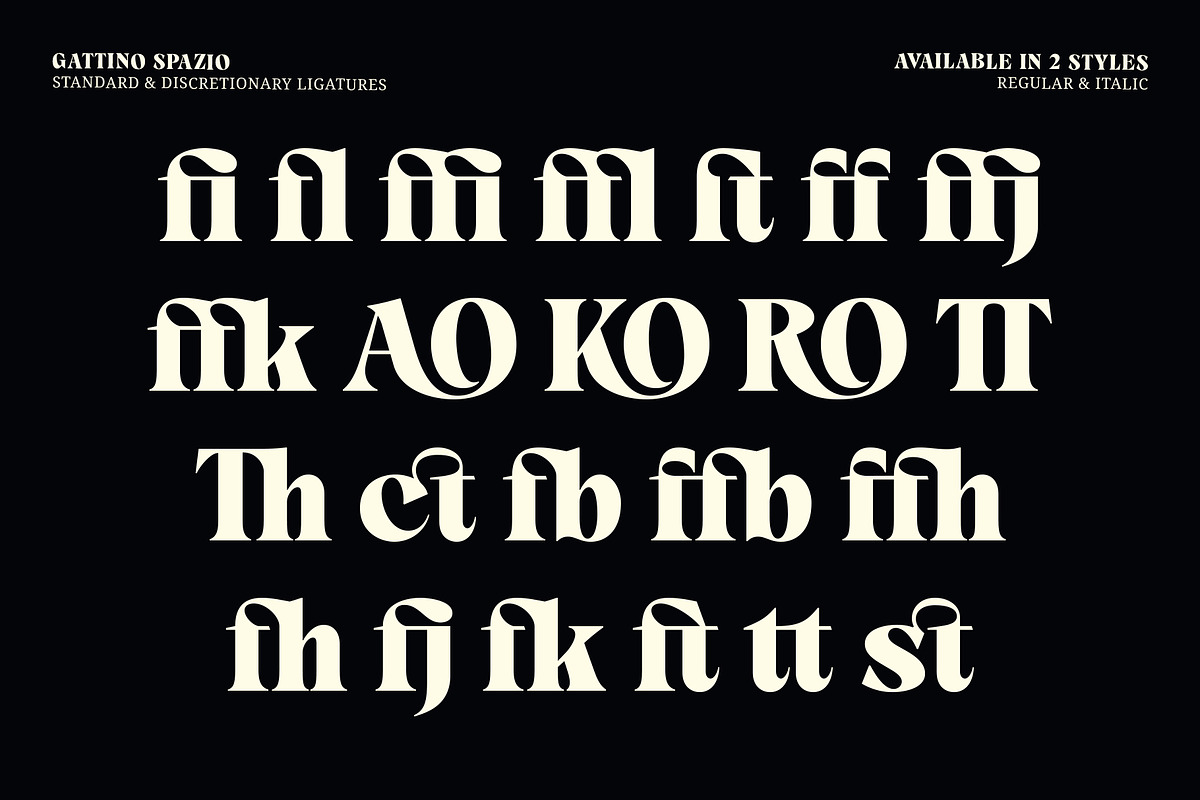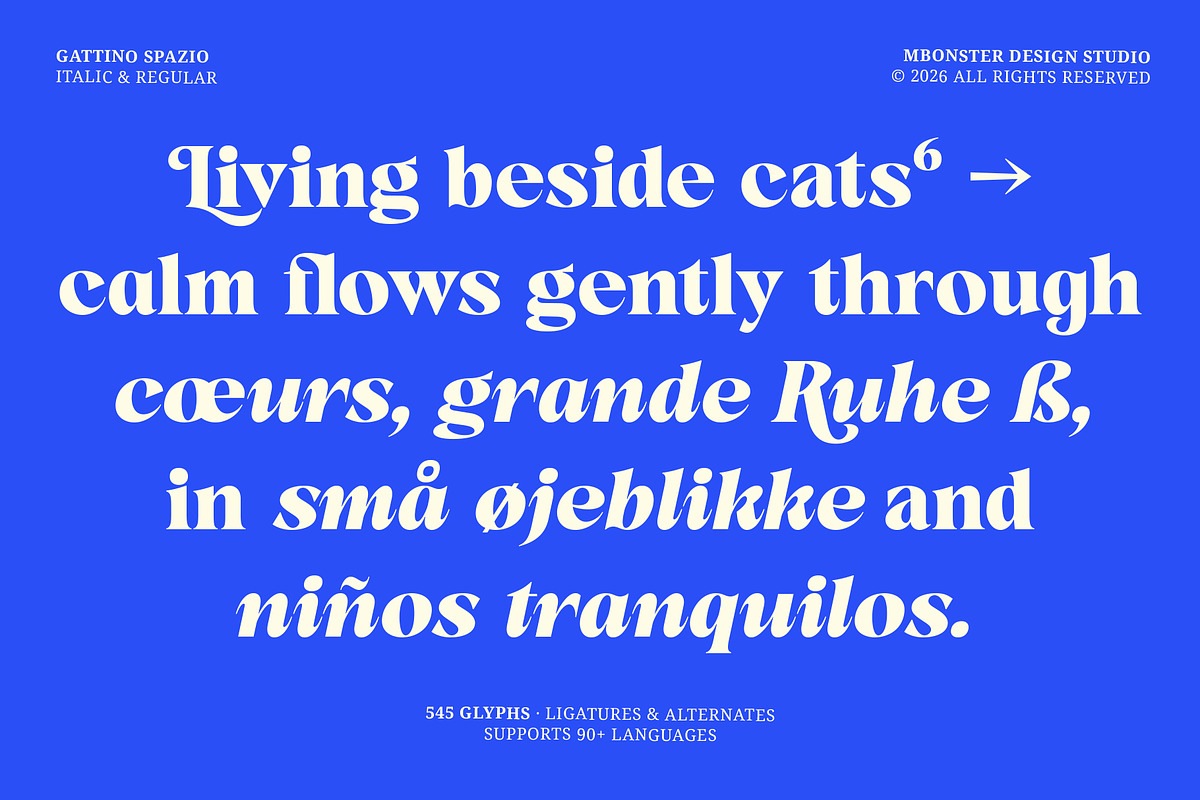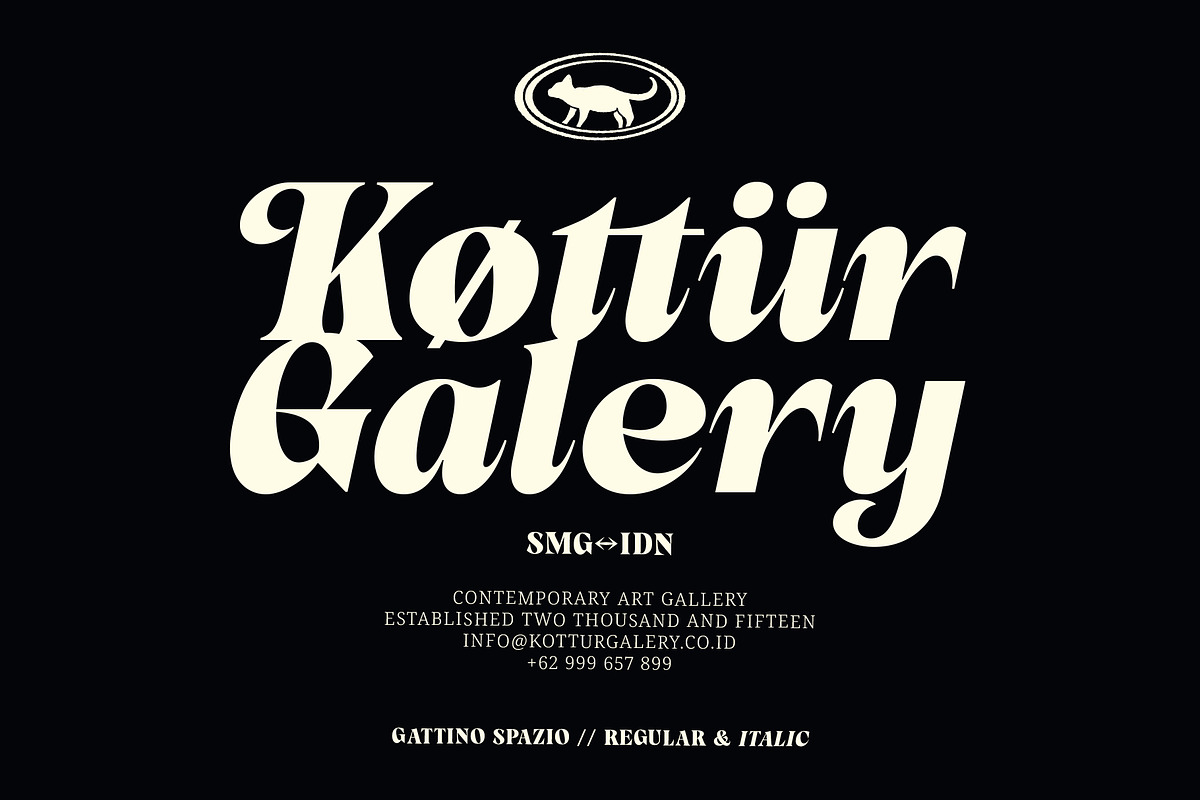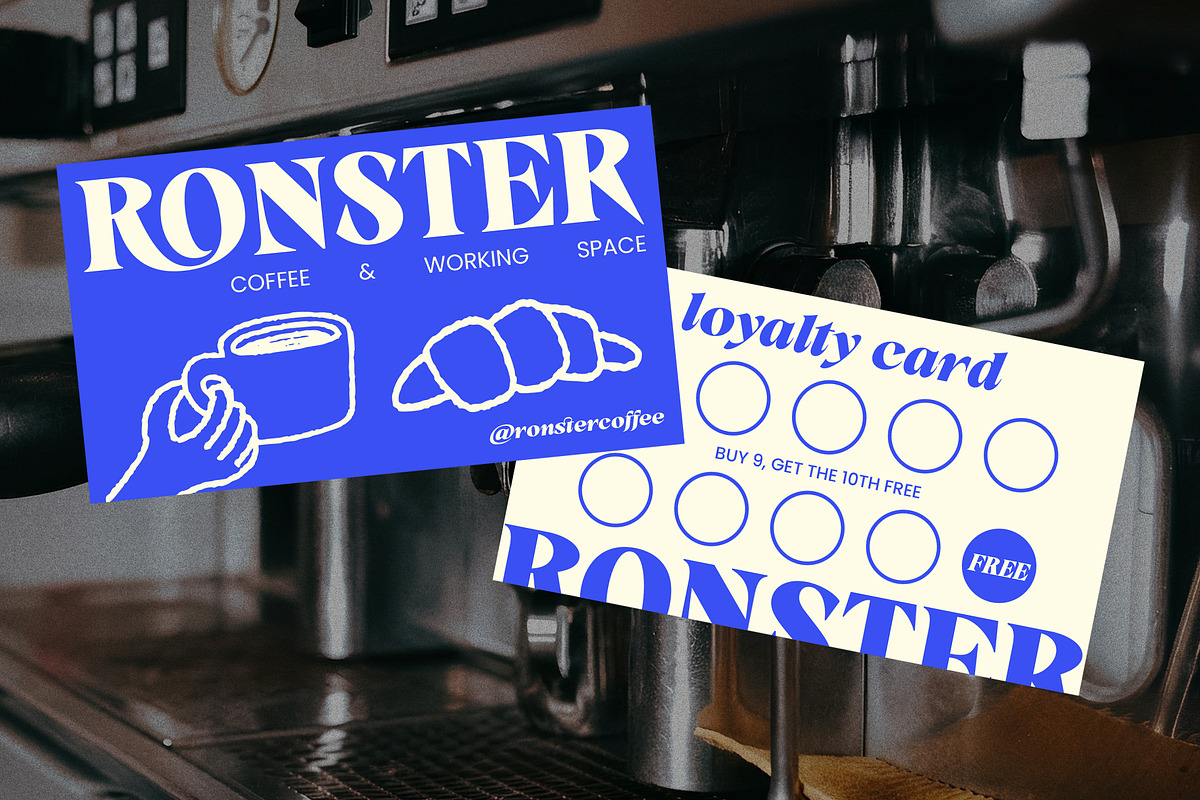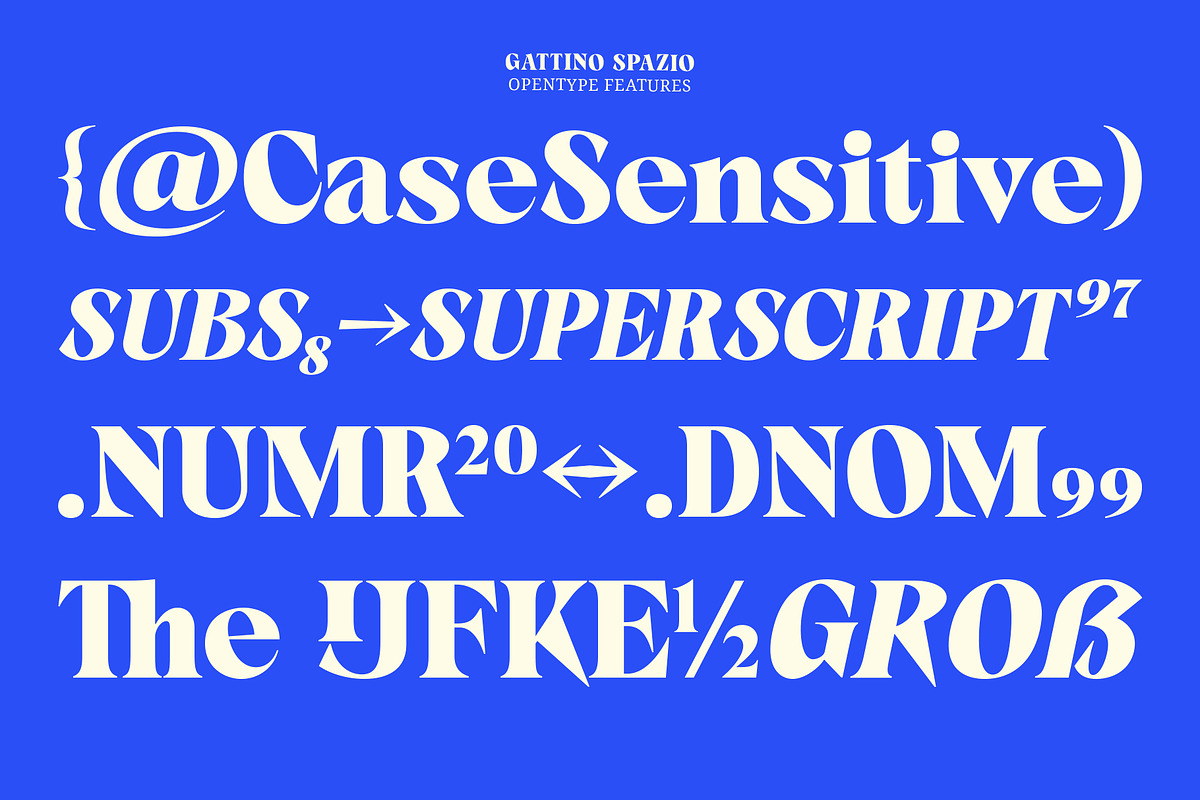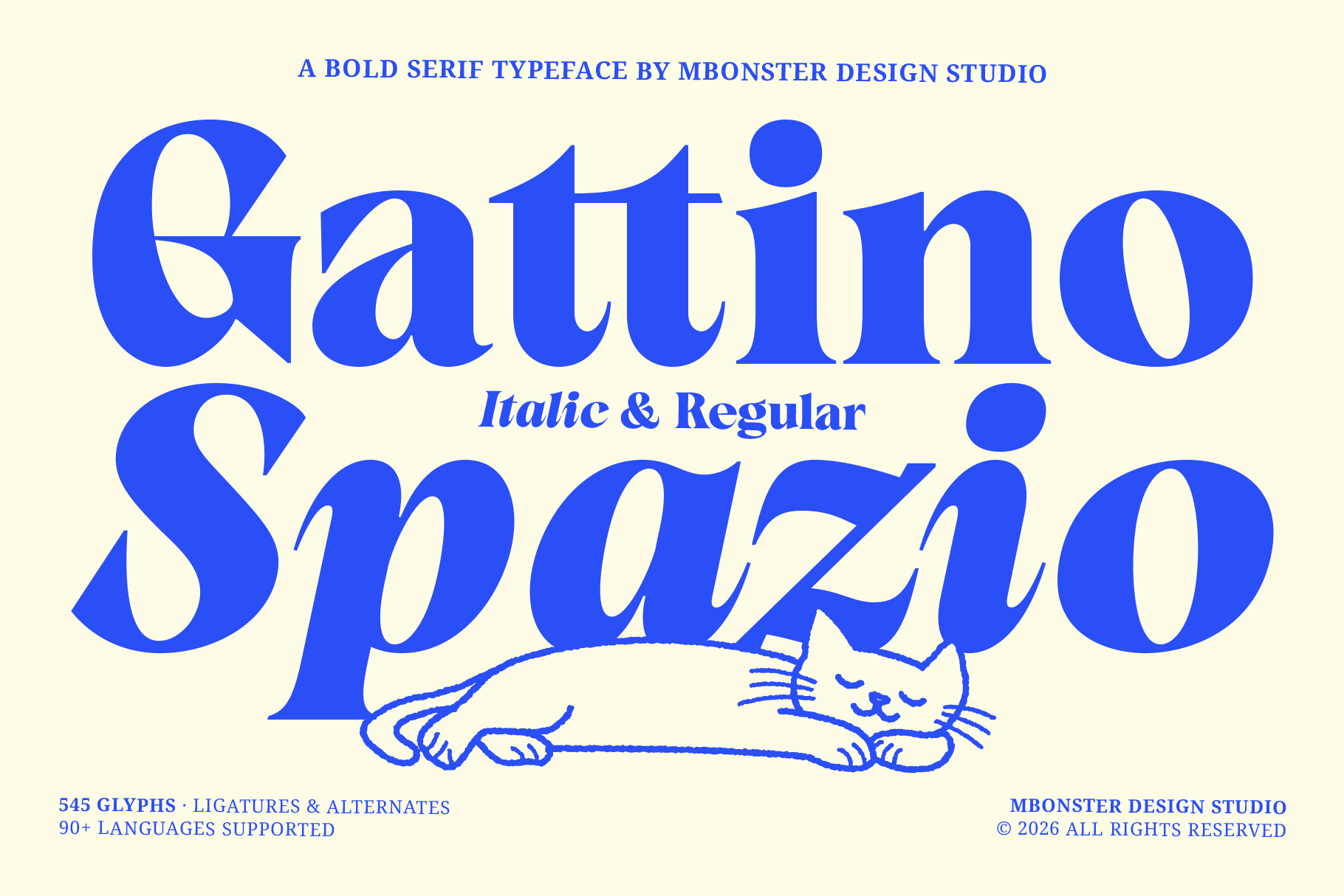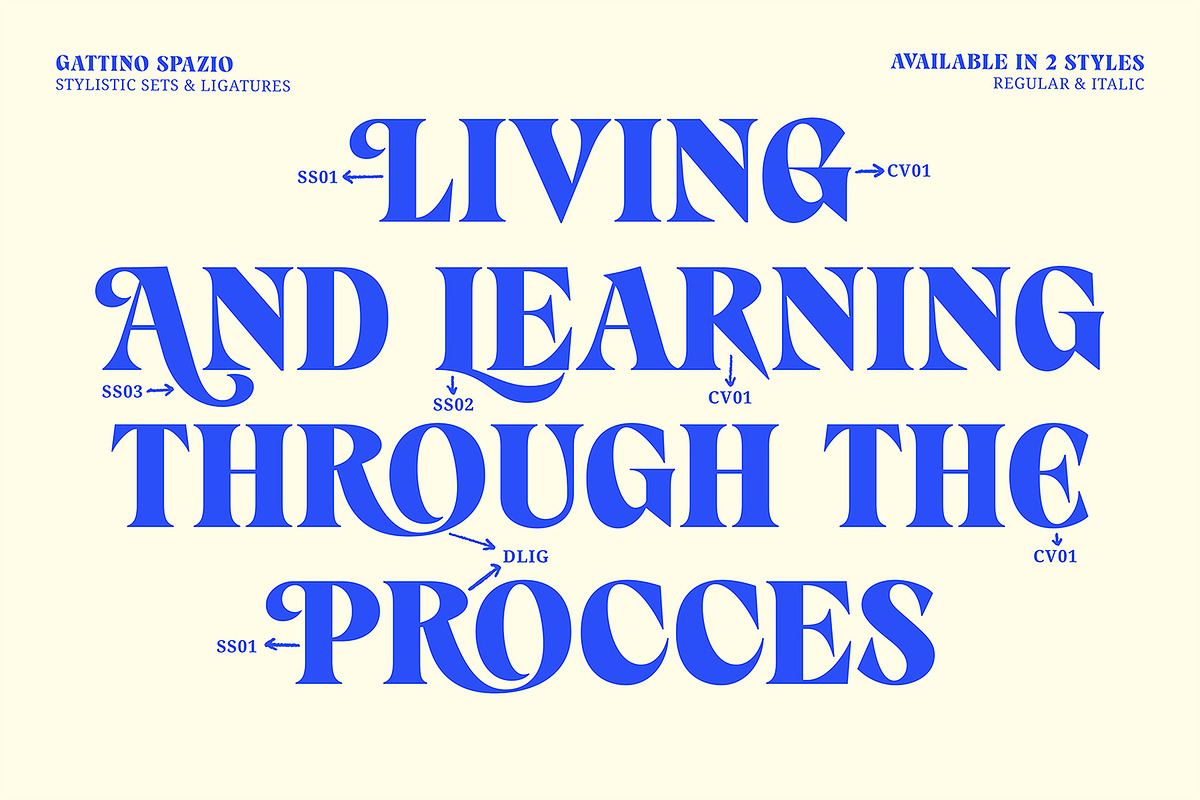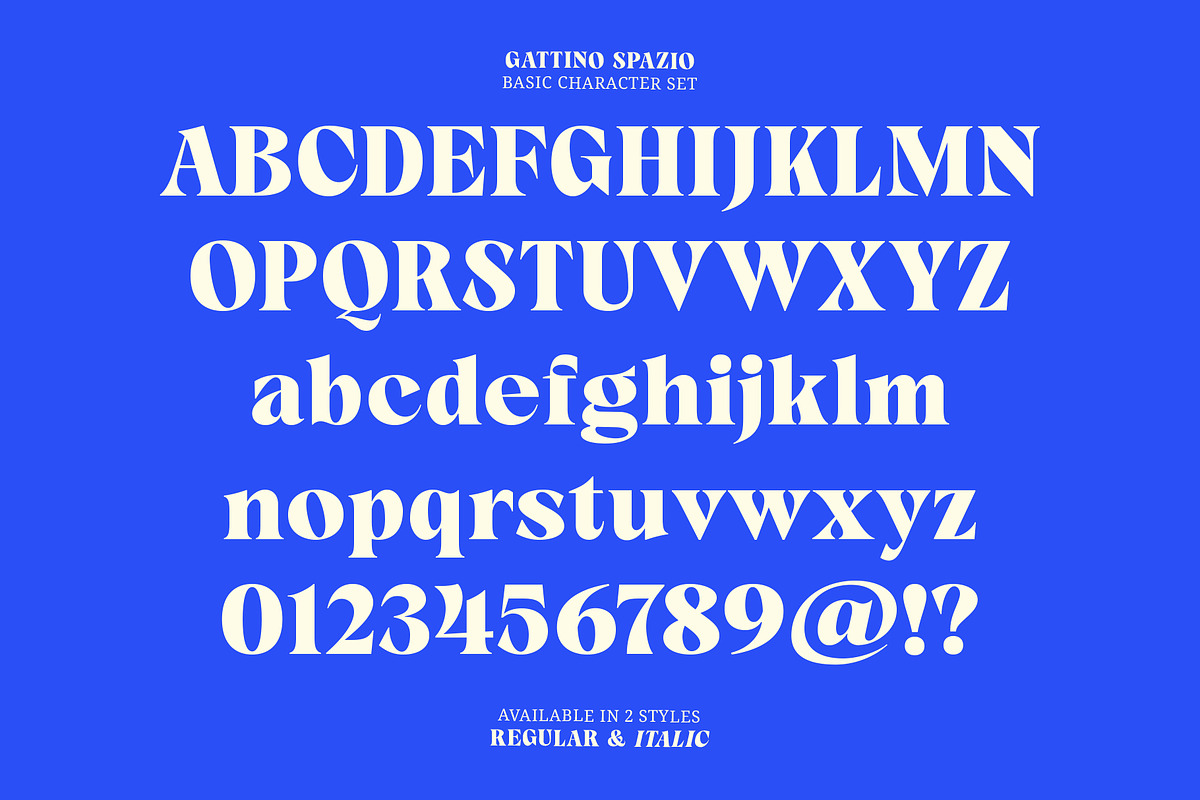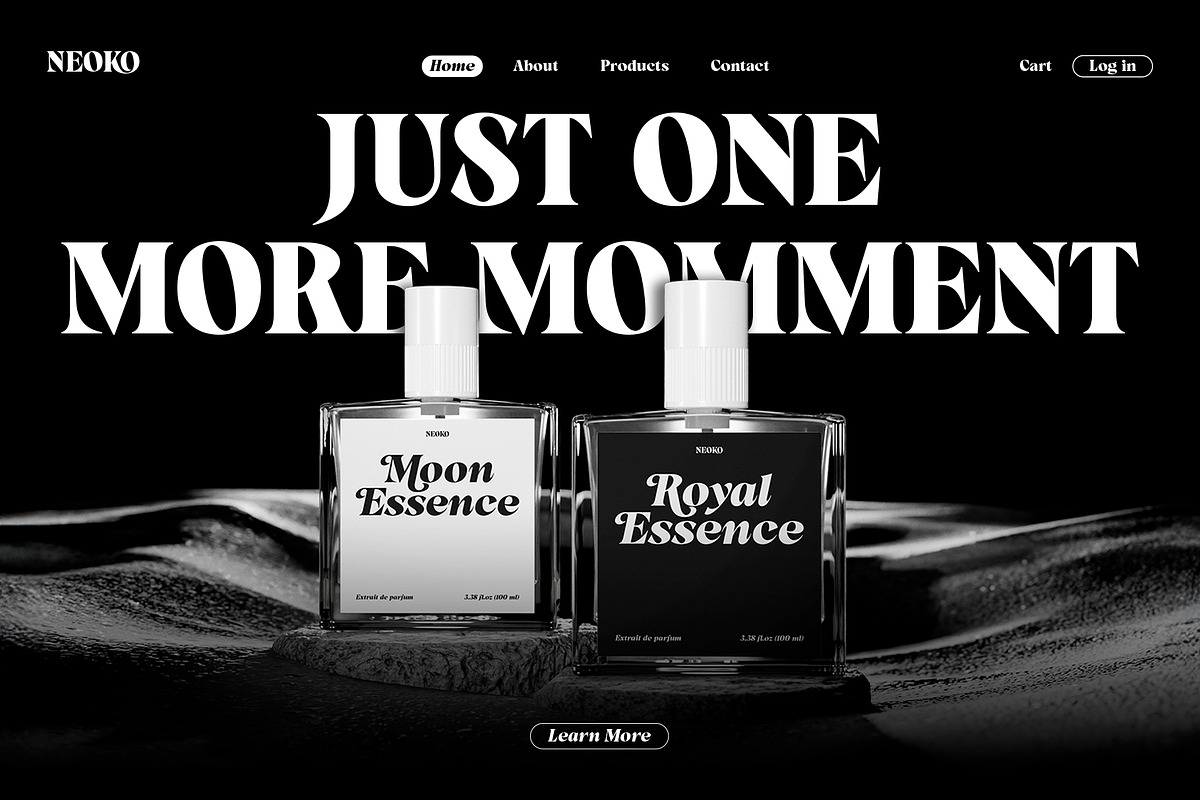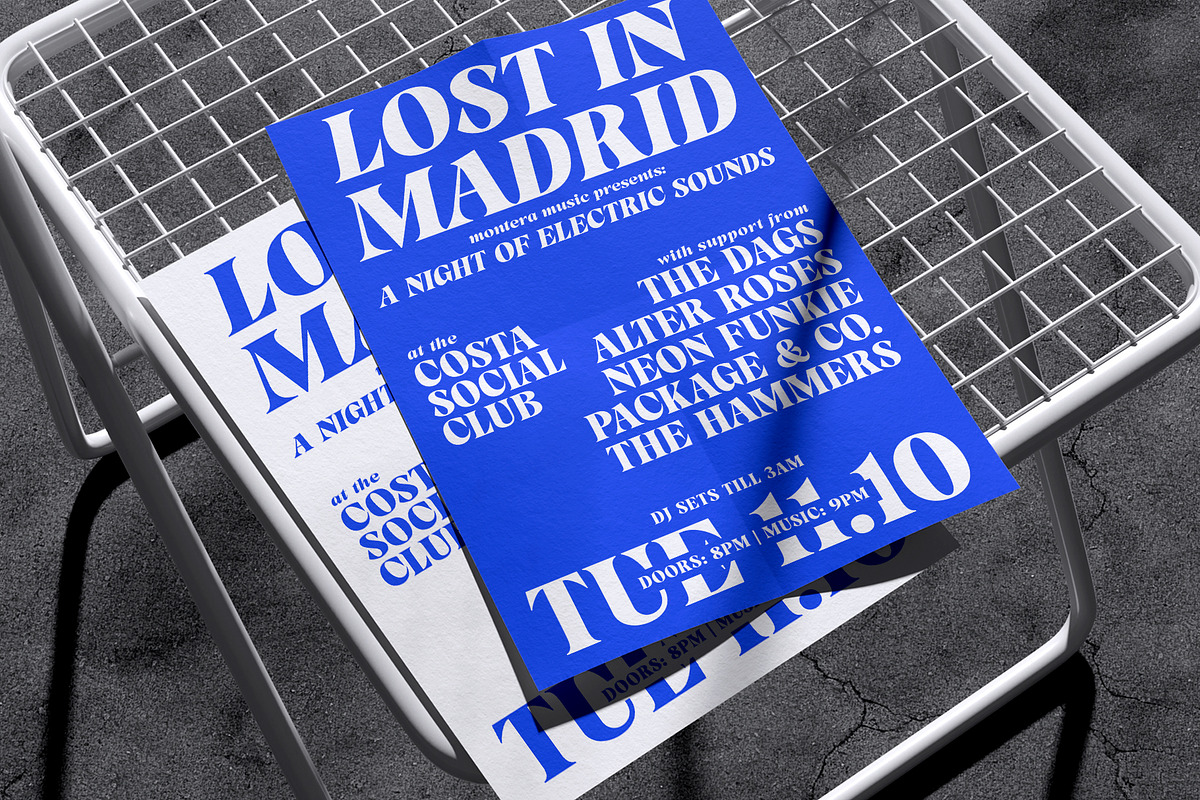
Gattino Spazio - Bold Serif Typeface
Gattino Spazio is a contemporary high-contrast editorial serif that blends classic Didone elegance with modern sophistication. Featuring striking contrast, refined details, and a beautifully crafted italic, it brings a polished, high-end presence to any design.
Perfect for luxury branding, packaging, editorials, fashion headlines, posters, and book covers, Gattino Spazio delivers style, distinction, and lasting visual impact.
2 Font Styles: Includes both Regular and Italic versions for versatile design options.
High-Contrast Design: Elegant thick-and-thin strokes create a sophisticated, luxury aesthetic.
Complete Character Set: Full Uppercase, Lowercase, Numbers, and Punctuation.
Creative OpenType Features: Access to unique ligatures and stylistic alternates for custom branding.
Global Multilingual Support: Supports Latin Extended characters, compatible with various Western and Central European languages.
Gattino Spazio is more than a typeface. It is a statement of style and distinction, made to help your work stand out, capture attention instantly, and leave a lasting impression.